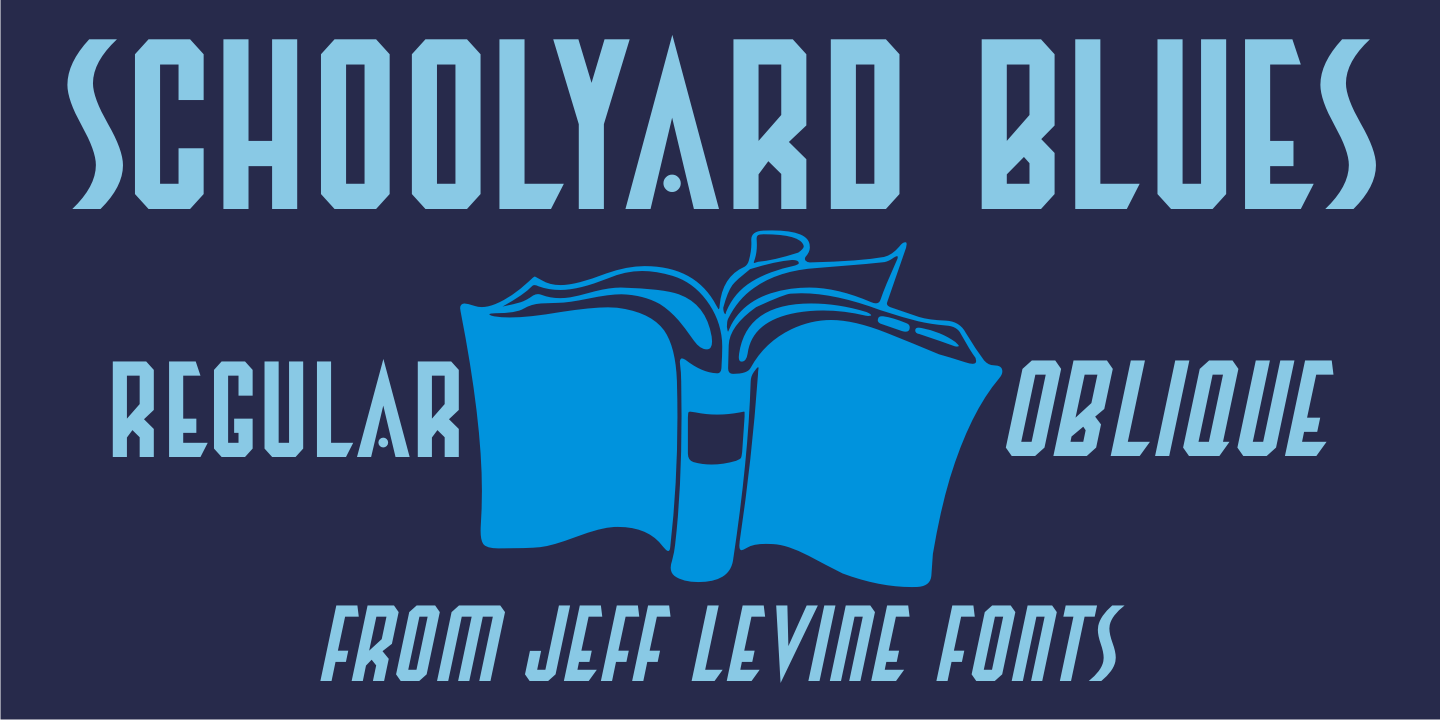
Schoolyard Blues
Schoolyard Blues JNL is based on the hand lettered title found on the sheet music for the 1938 song 'I Was Late for School'.
A condensed sans serif with chamfered corners, it reflects the Art Deco influences of the day in some of the letter forms. This type design is available in both regular and oblique versions.